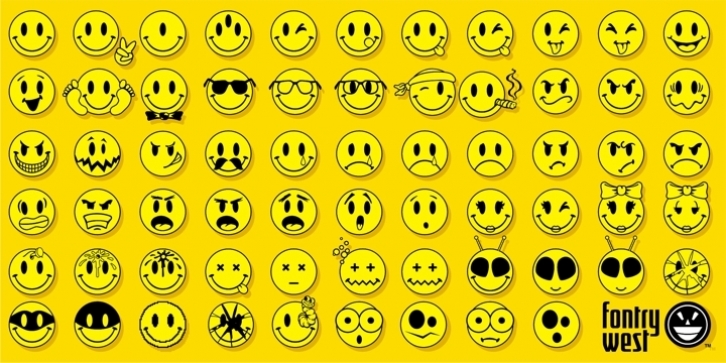
“Have a nice day!†Most of us remember that motto and the simple smiling face from childhood. Once merely a friendly, optimistic little image, it has become an icon. The smiley face has been updated and spread across the world by the net. As a collection of little emoticons, it has become part of just about every culture. More than just another friendly face, Smiley can now be friendly, sad, happy, angry, etc.
This collection is our fun expression of the smiley face. We’ve got smileys for seasons, some holidays, and a wide range of emotions. There are smileys for just about every occasion. We also created a smiley tribute to classic movie monsters.
So, have a (insert your preference here) day!